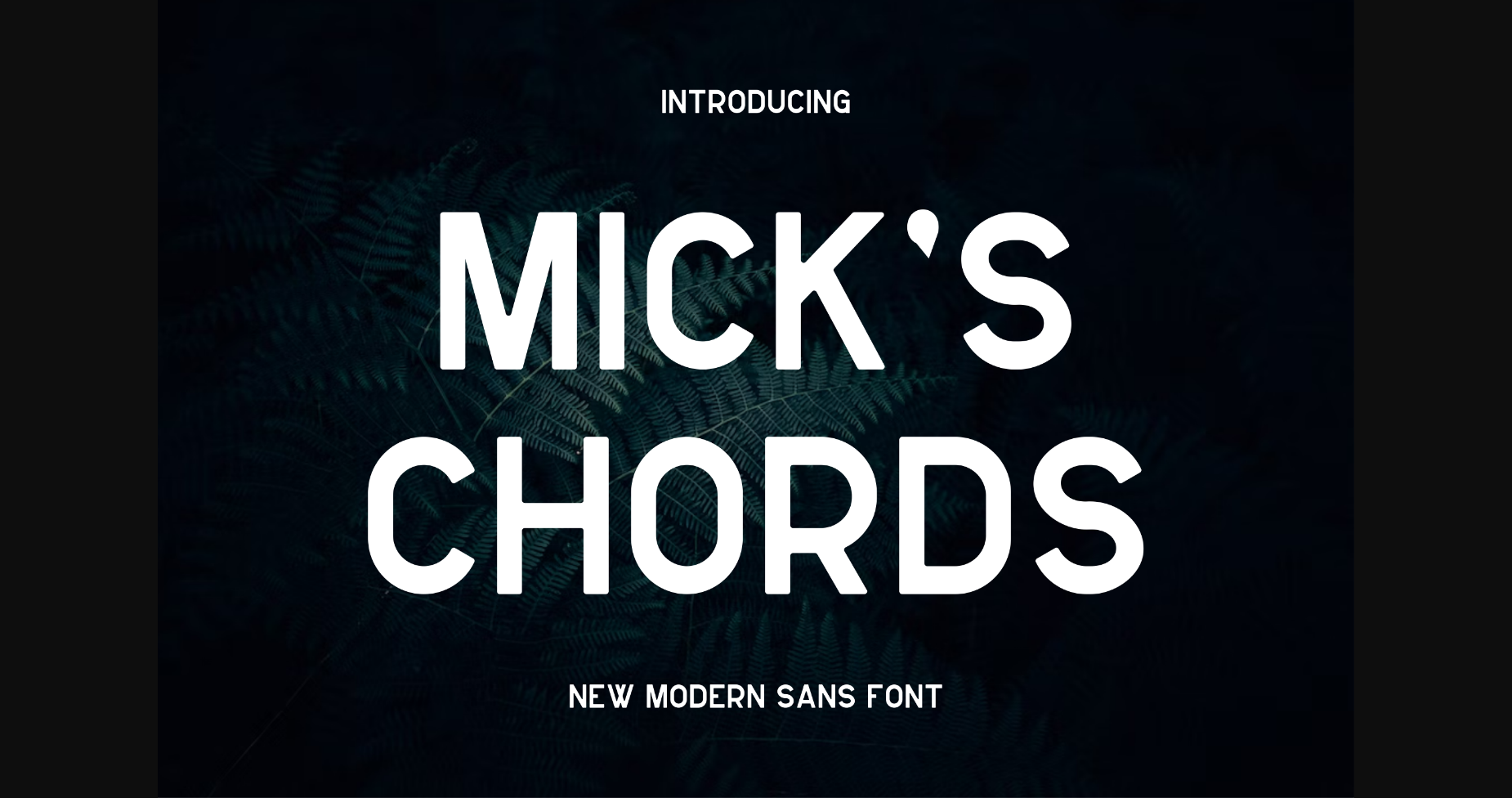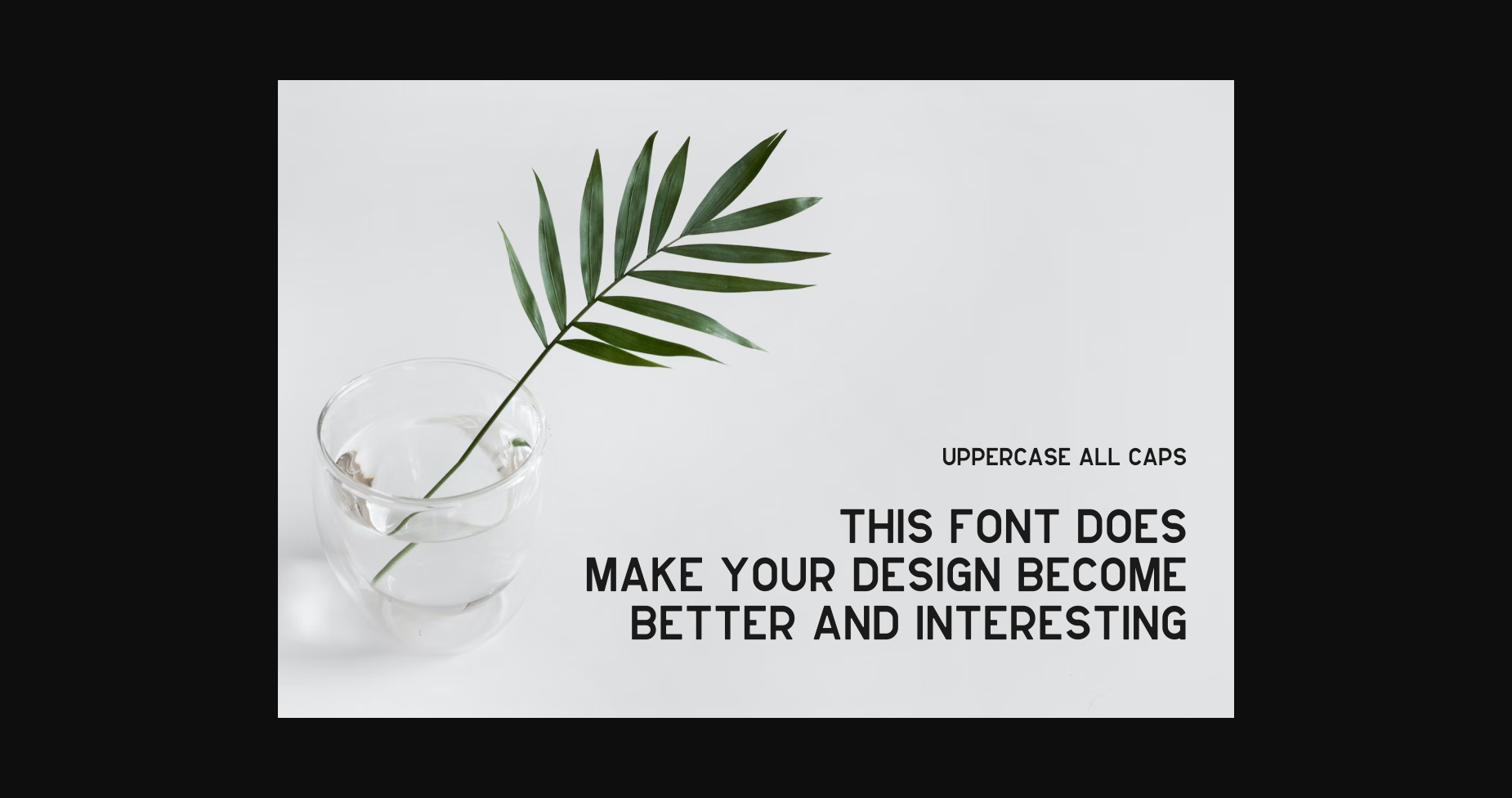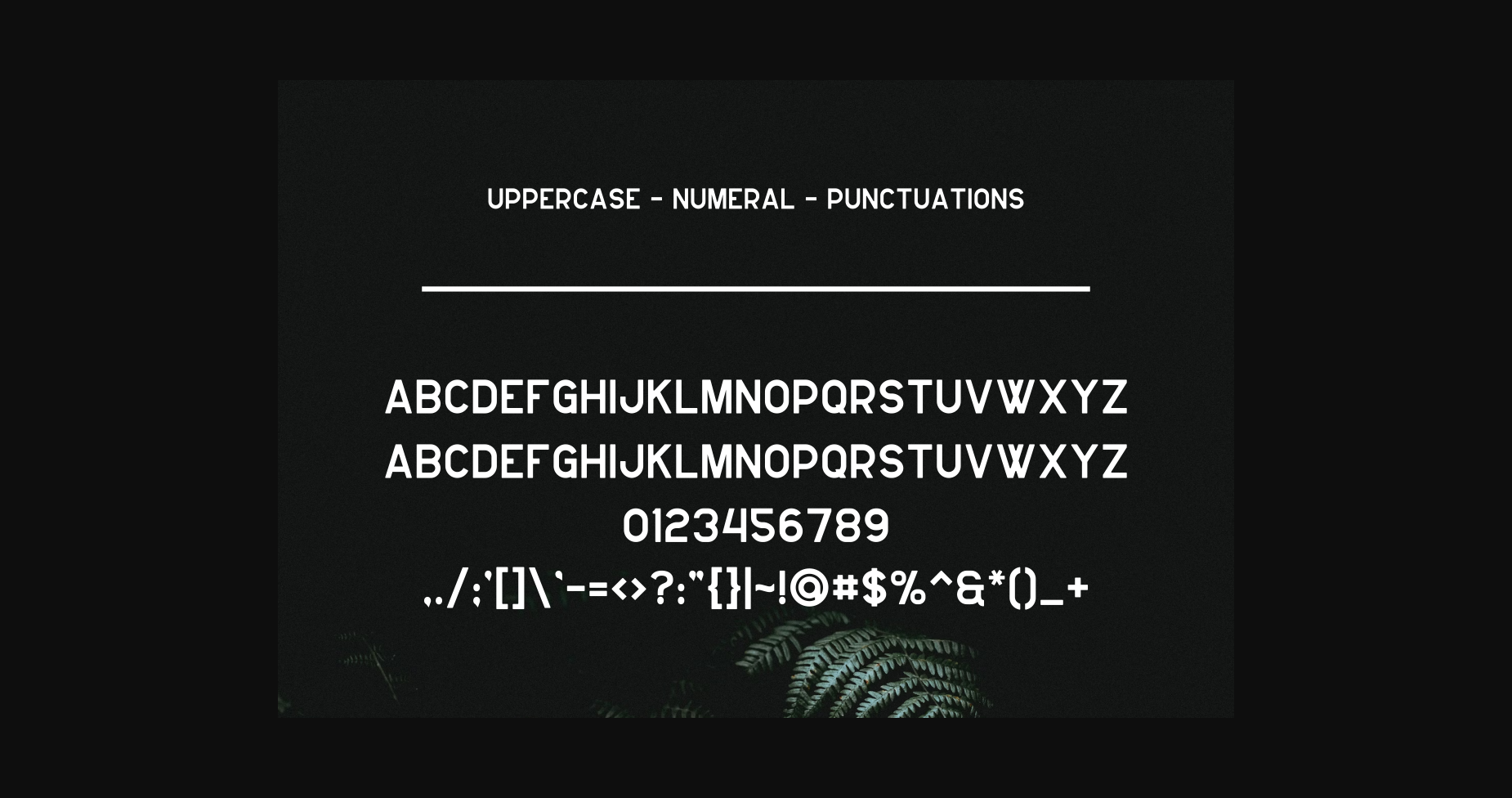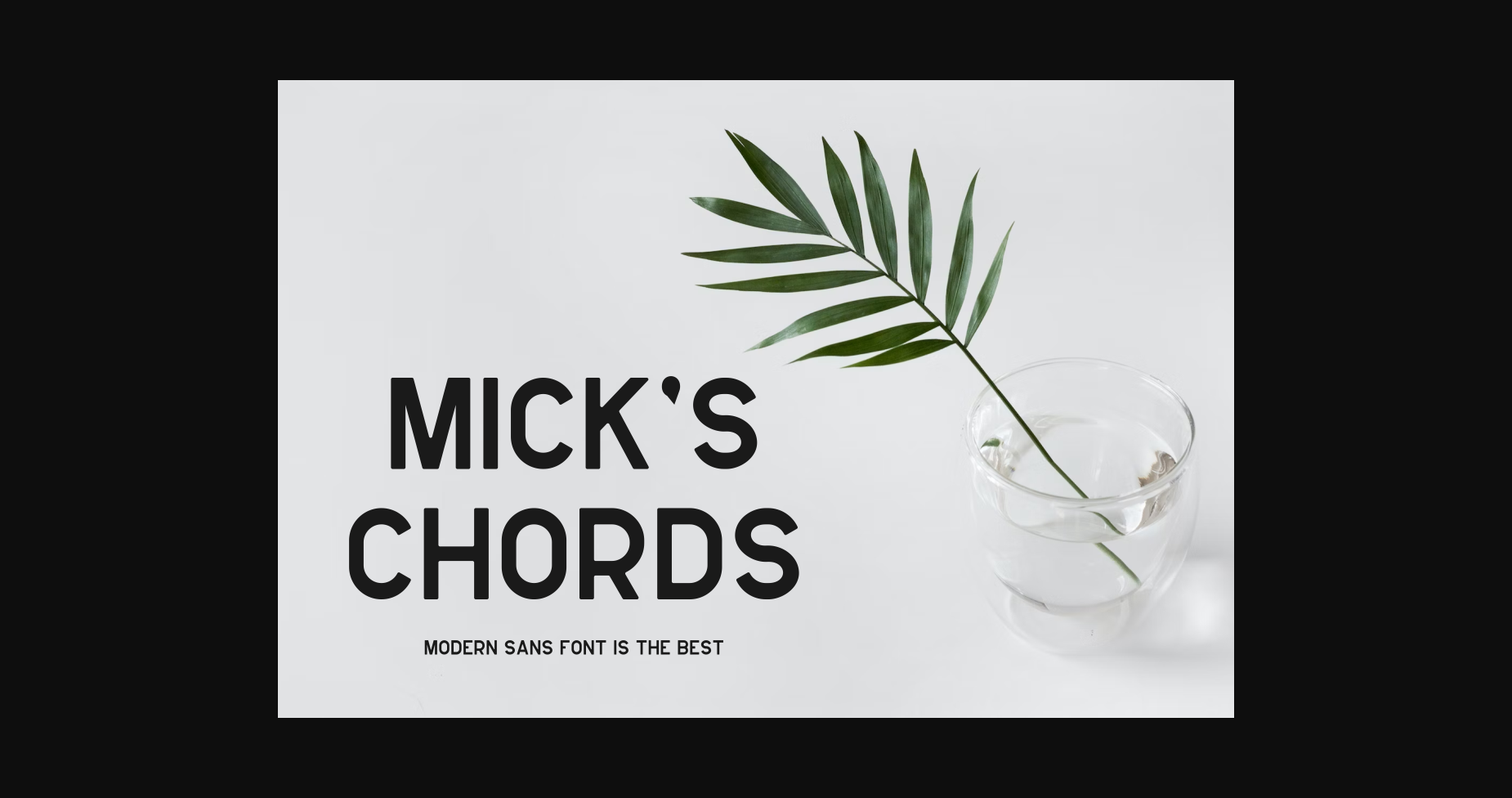
About Mickschords Font
Introducing our new product **MicksChords Font** – Modern Font
**MicksChords Font** – Modern Font is a bold and authentic display font. The font is suitable for any branding project like logo, t-shirt printing, esports, and many more. Outstanding in a wide range of contexts.